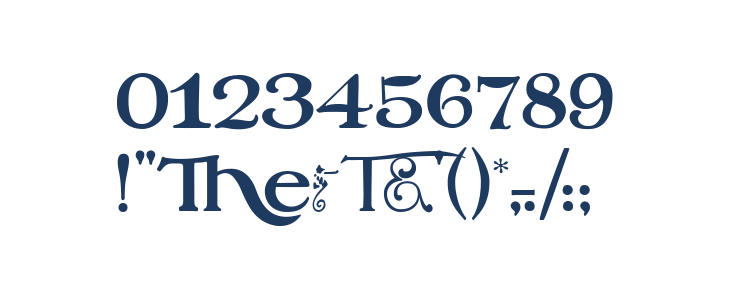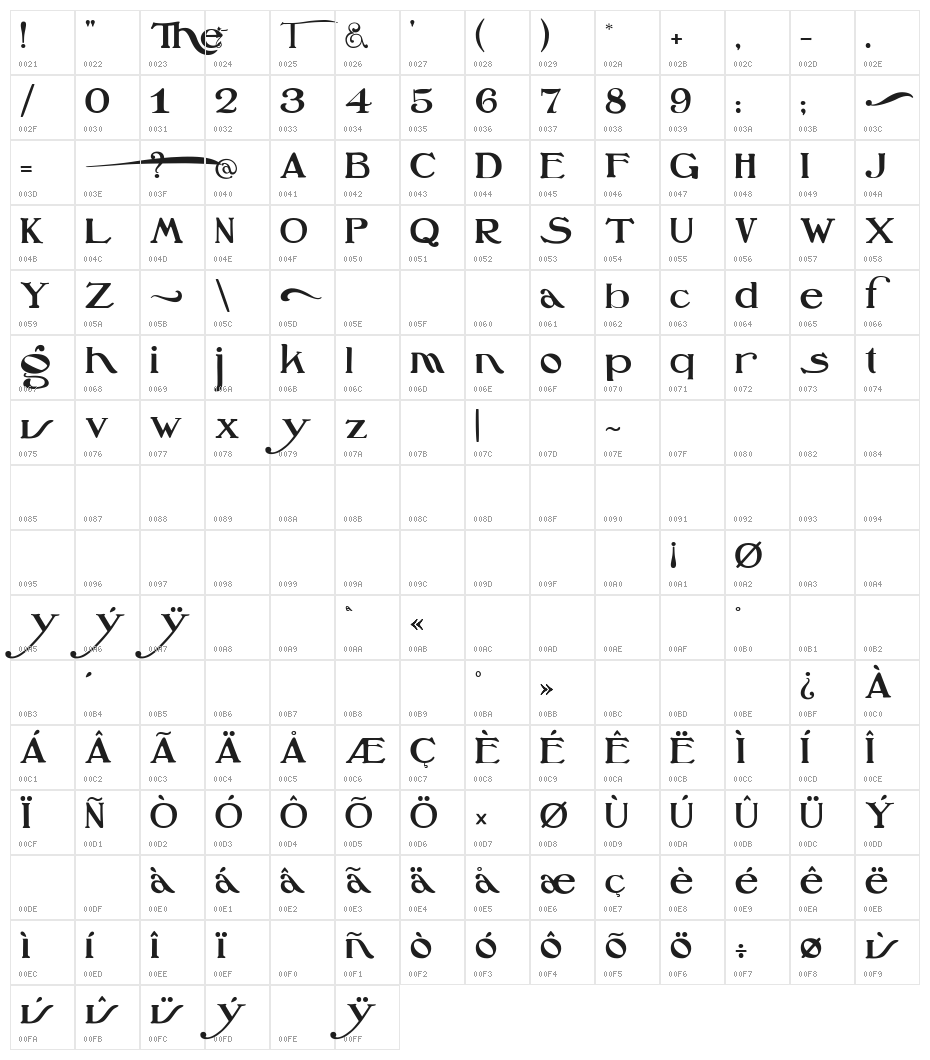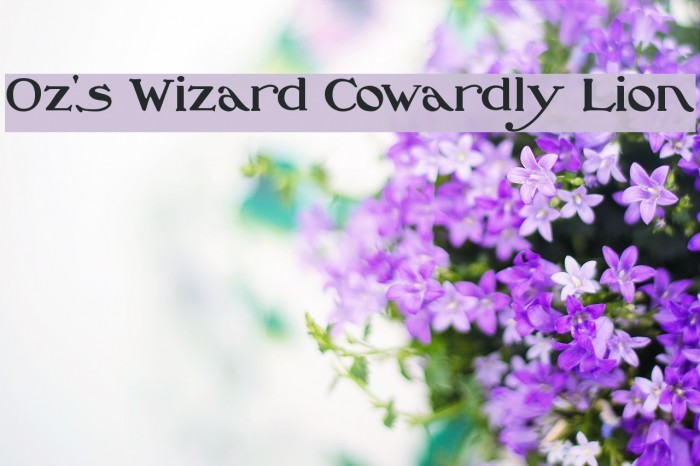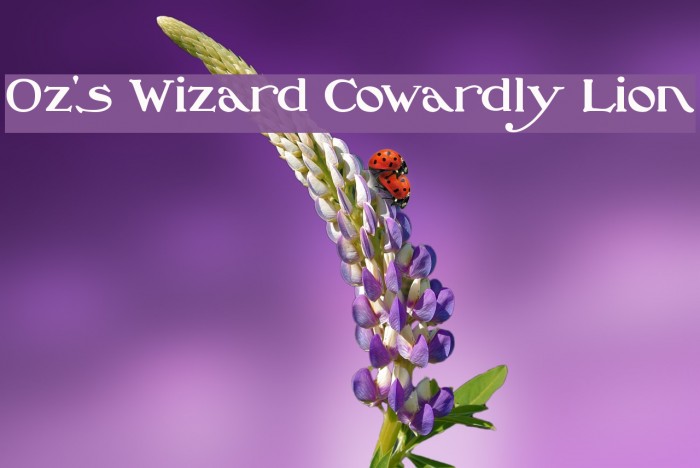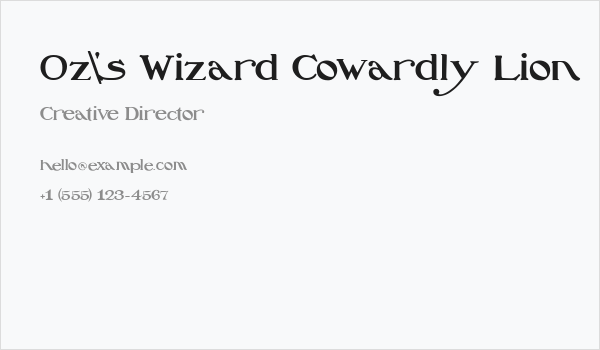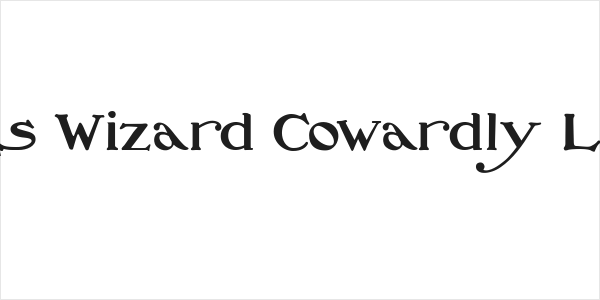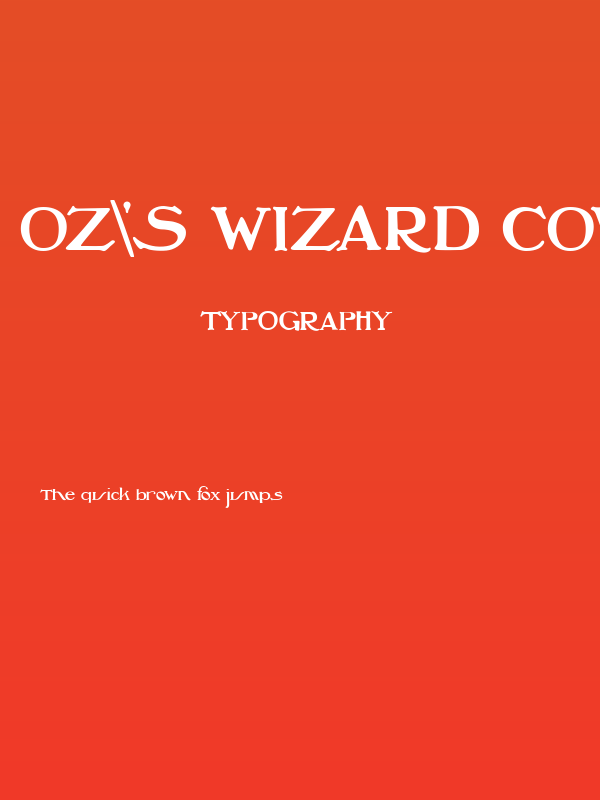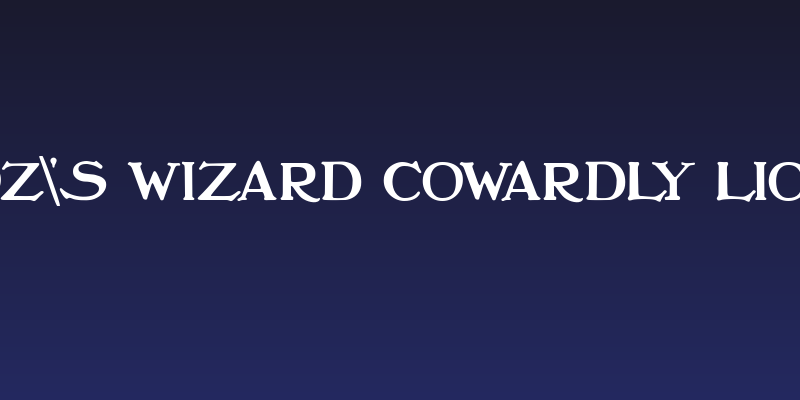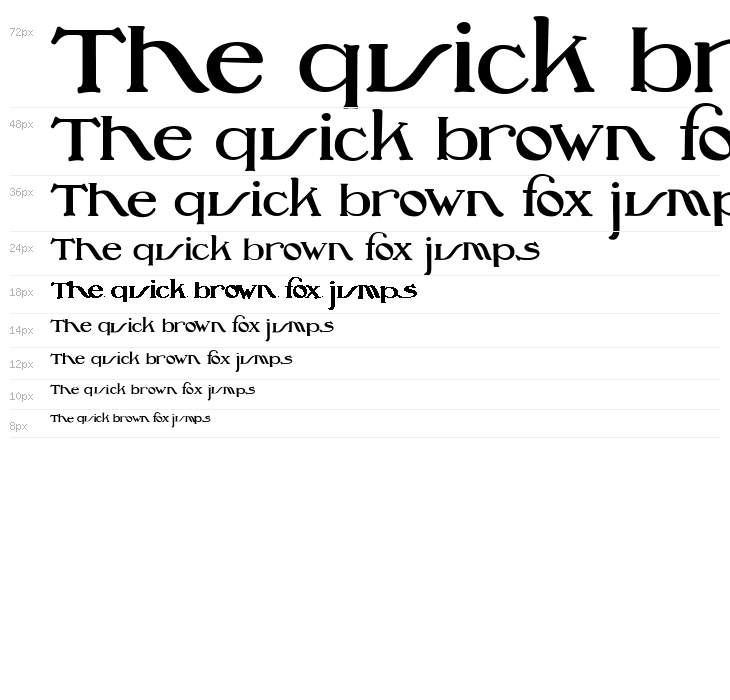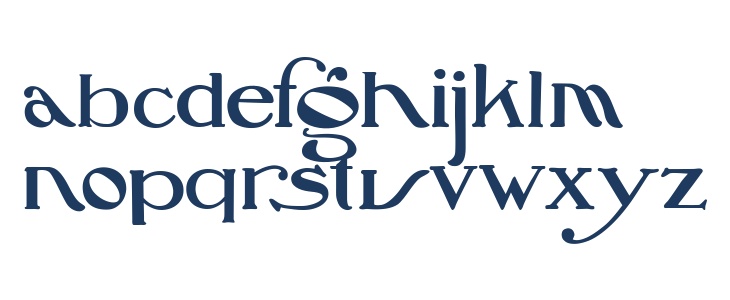
Oz's Wizard Cowardly Lion Font
Oz's Wizard Cowardly Lion Description
This font features a whimsical and playful design, characterized by its unique and decorative elements. The uppercase letters have a bold presence with slight flourishes, while the lowercase letters maintain a consistent style with quirky curves and loops. The numerals are distinct and maintain the playful theme, making them stand out. Special characters are creatively designed, adding to the font's charm. Overall, this font exudes a sense of fantasy and creativity, making it suitable for projects that require a touch of magic and imagination.
| Proposed Projects | Ideal for children's books, fantasy-themed posters, and creative branding projects. |